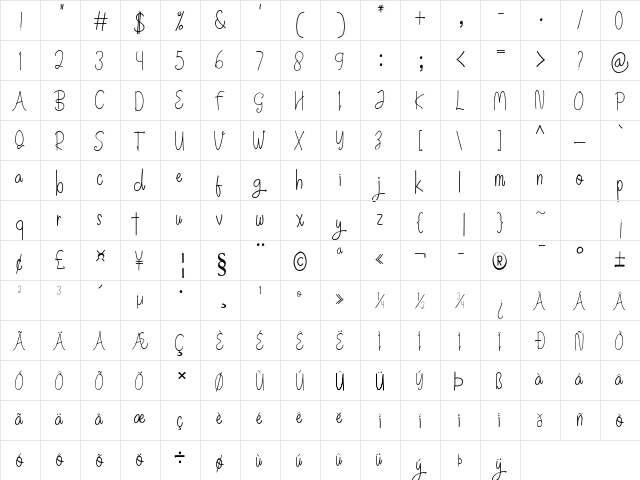
Zero Panzer Regular
Design Context for Zero Panzer Typeface
Zero Panzer offers clean, dependable letterforms without strong stylistic allegiance, making it a practical choice for designers who need flexibility.